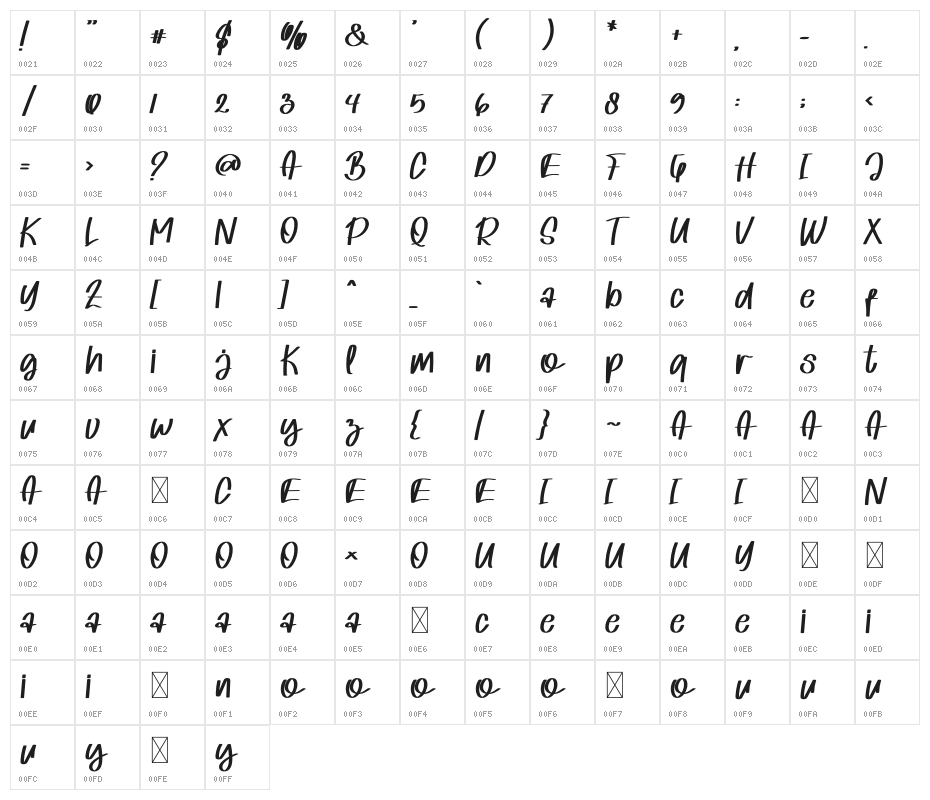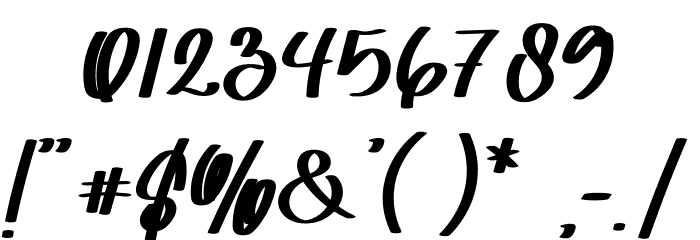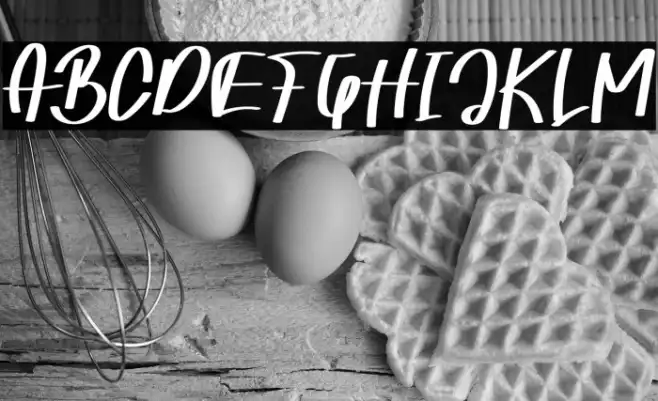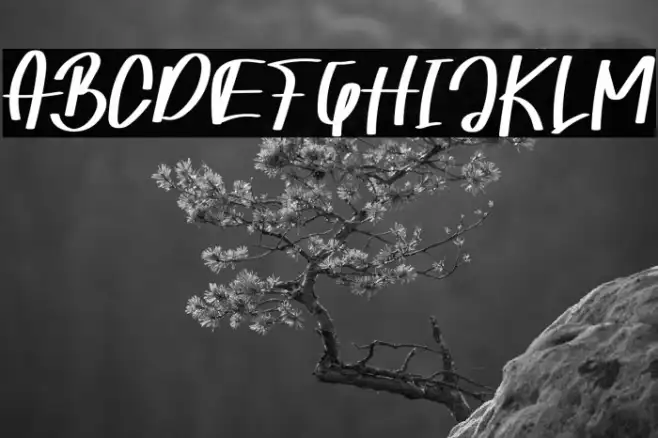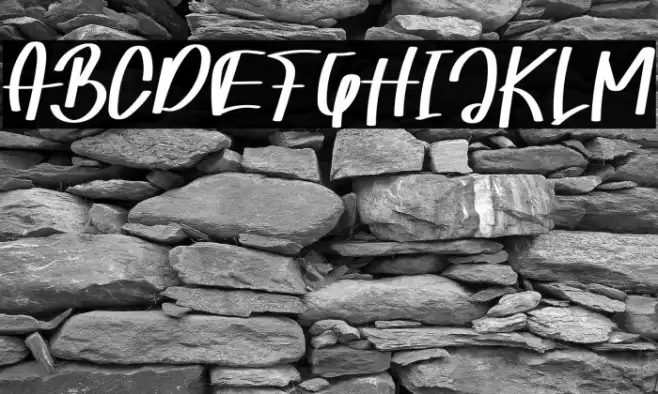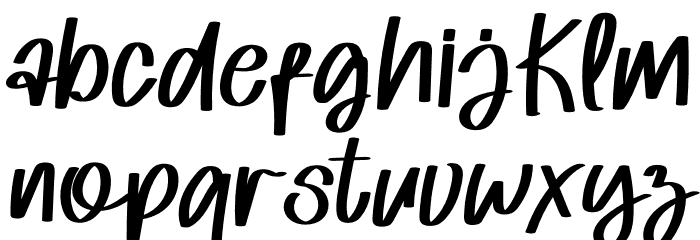
Mango Juice Font
Mango Juice Description
This font features a lively and energetic script style with a handwritten feel. The letters are bold and slightly slanted, giving a sense of movement and fluidity. The uppercase letters are distinct with exaggerated curves, while the lowercase letters maintain a consistent flow, enhancing readability. The numerals are rounded and match the playful style of the alphabet. Special characters are well-integrated, maintaining the overall aesthetic. This font is perfect for projects that require a personal touch or a dynamic visual impact.